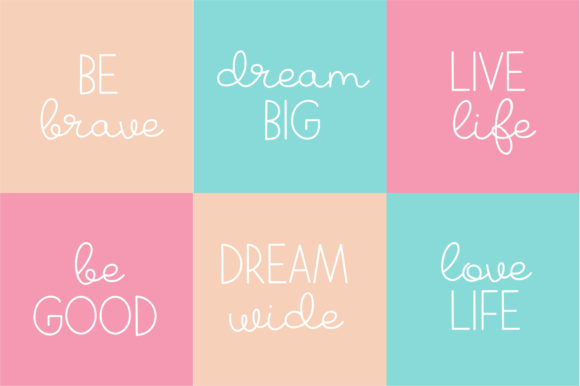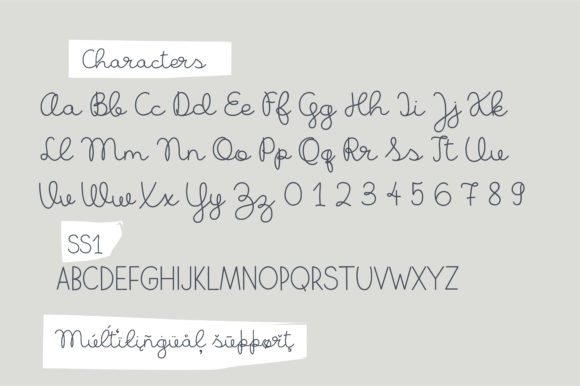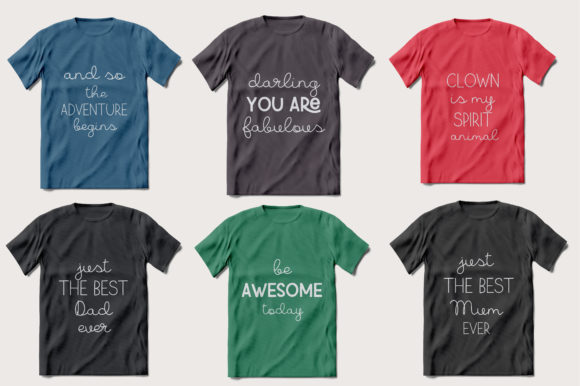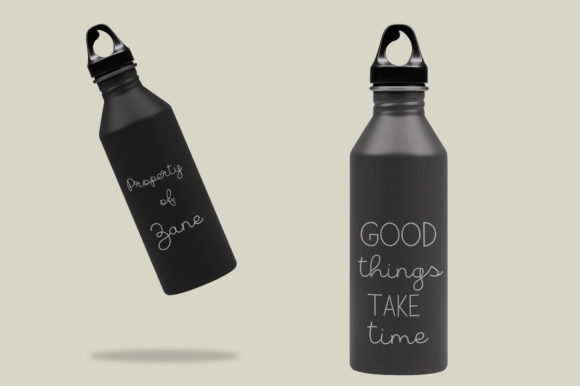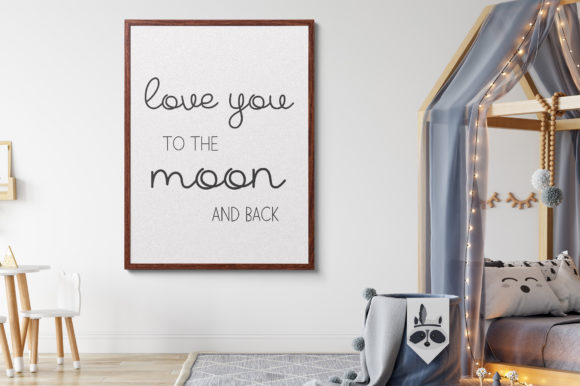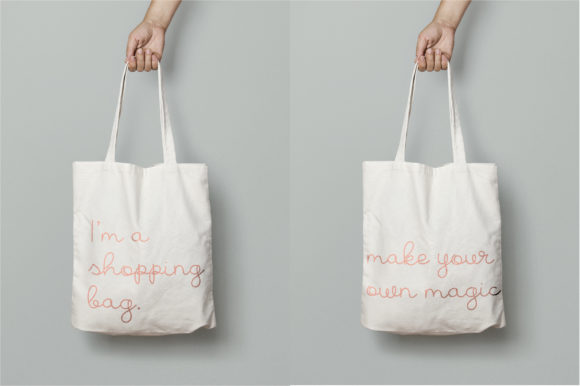
Cocoa Beach Font: The Perfect Addition to Your Design Arsenal
Are you tired of using the same old fonts in your designs? Look no further than the Cocoa Beach Font, a cute and casual handwritten font that’s sure to add a touch of friendliness to any project. With its incredibly friendly feel, this font is perfect for designers and crafters looking to add a personal touch to their work.
What is Cocoa Beach Font?
Cocoa Beach Font is a beautiful, handwritten font that’s designed to evoke a sense of warmth and approachability. Its casual, laid-back vibe makes it perfect for a wide range of design projects, from social media graphics to DIY crafts. Whether you’re looking for fonts for Instagram or calligraphy scripts for your next project, Cocoa Beach Font is the perfect choice.
Key Features of Cocoa Beach Font
- Cute and Casual: Cocoa Beach Font has a playful, informal feel that’s perfect for designers who want to add a touch of whimsy to their work.
- Handwritten: This font is carefully crafted to mimic the look and feel of handwritten text, giving it a personal and unique touch.
- Friendliness: The font’s friendly feel makes it perfect for designs that need to convey a sense of approachability and warmth.
- Versatility: Cocoa Beach Font can be used for a wide range of design projects, from social media graphics to DIY crafts.
Uses for Cocoa Beach Font
Cocoa Beach Font is a versatile font that can be used for a wide range of design projects. Here are a few ideas to get you started:
- Social Media Graphics: Use Cocoa Beach Font to create eye-catching social media graphics that showcase your brand’s personality.
- DIY Crafts: Add a personal touch to your DIY crafts with Cocoa Beach Font, perfect for projects like handmade cards, gift tags, and more.
- Calligraphy Scripts: Use Cocoa Beach Font as a starting point for your calligraphy scripts, adding a touch of elegance and sophistication to your work.
- Branding: Use Cocoa Beach Font to create a consistent brand identity that showcases your brand’s friendly and approachable personality.
Why Choose Cocoa Beach Font?
With so many fonts to choose from, why should you choose Cocoa Beach Font? Here are a few reasons why:
- Unique: Cocoa Beach Font has a unique and distinctive look that sets it apart from other fonts.
- Easy to Read: The font is carefully crafted to be easy to read, making it perfect for designs that need to communicate a message.
- Customizable: Cocoa Beach Font can be customized to fit your brand’s personality, making it a versatile addition to your design arsenal.
In conclusion, Cocoa Beach Font is a beautiful, handwritten font that’s perfect for designers and crafters looking to add a touch of friendliness to their work. With its cute and casual vibe, versatility, and ease of use, this font is sure to become a staple in your design arsenal. Whether you’re looking for fonts for Instagram or calligraphy scripts for DIY projects, Cocoa Beach Font is the perfect choice. So why wait? Download Cocoa Beach Font today and start creating stunning designs that showcase your brand’s personality!